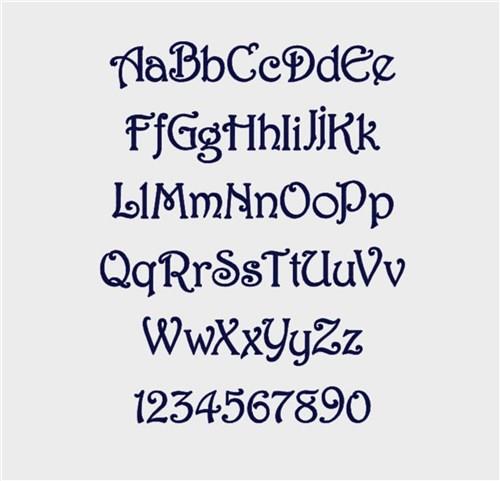
Artsy Knots is happy to present Pds harrington machine embroidery font which has The intricate design of the Harrington Embroidery Font is perfect for decorative projects, ideal for use on home decor items like throw pillows. This machine embroidery font is available in formats including PES, DST, and more. included. If you would like to view more embroidery fonts and alphabets please search our embroidery fonts page.